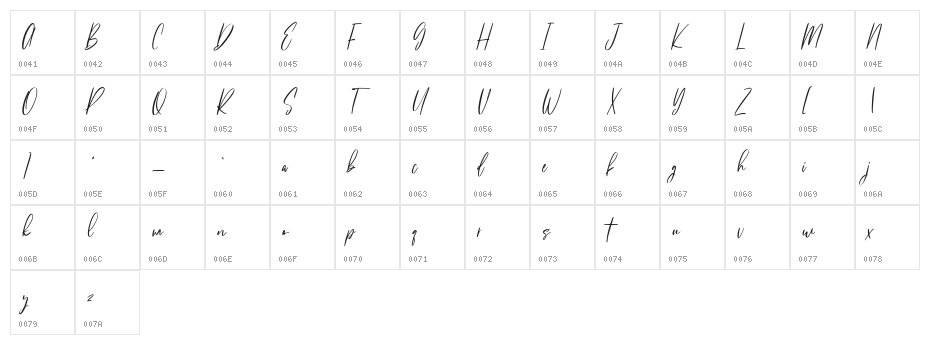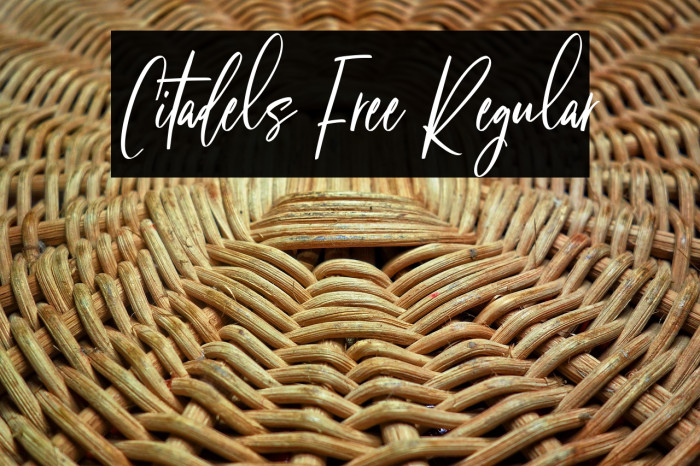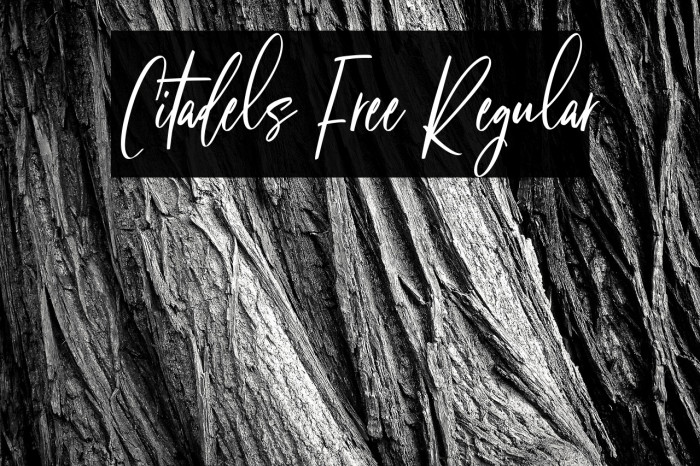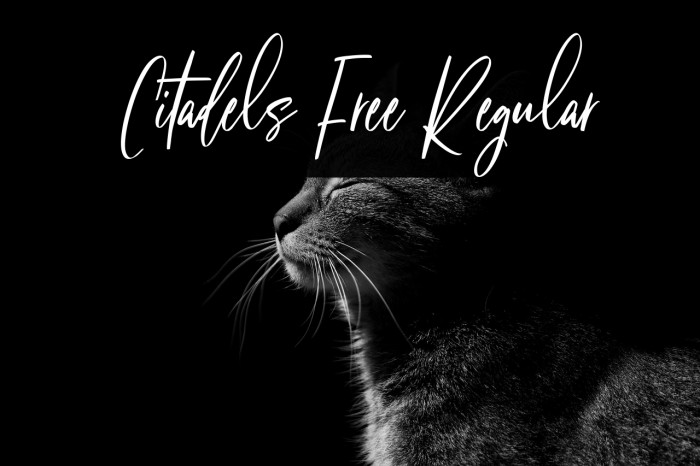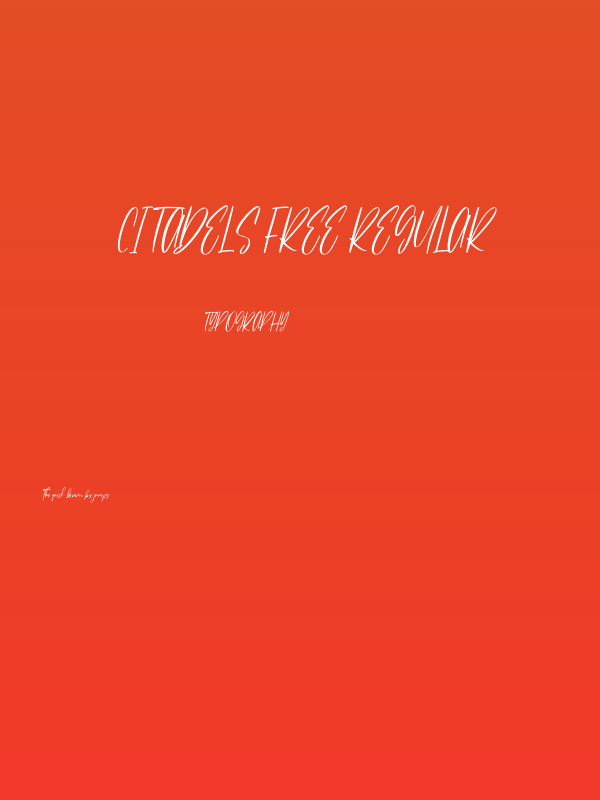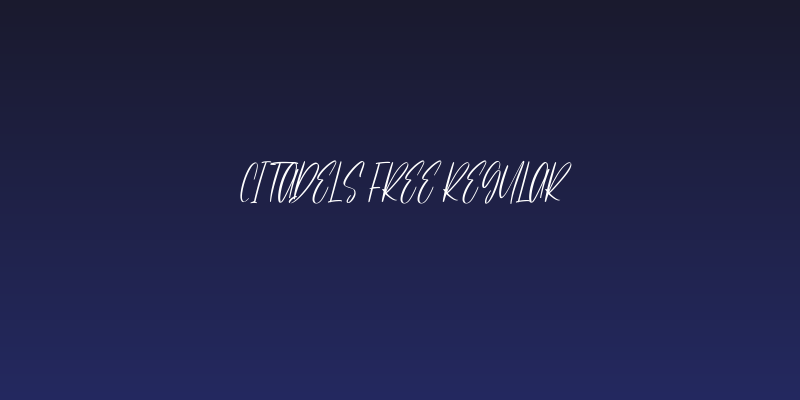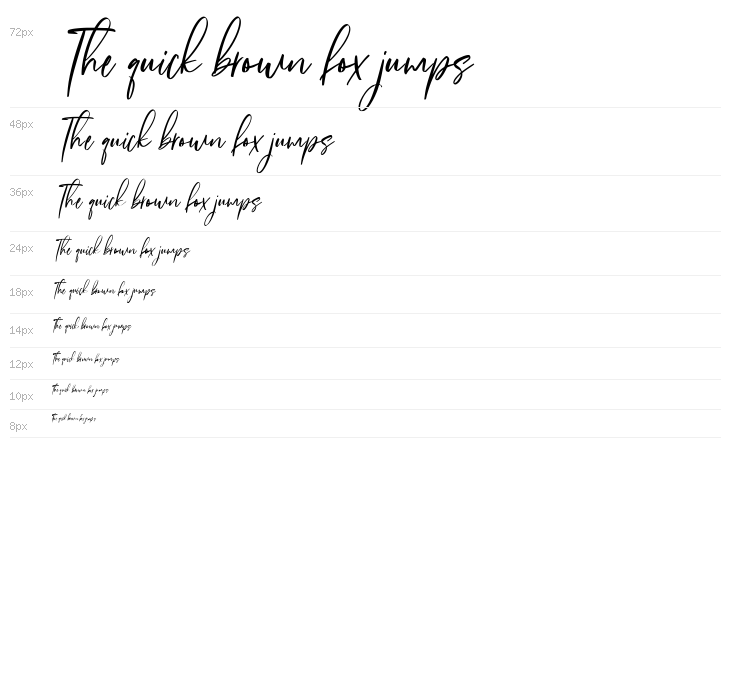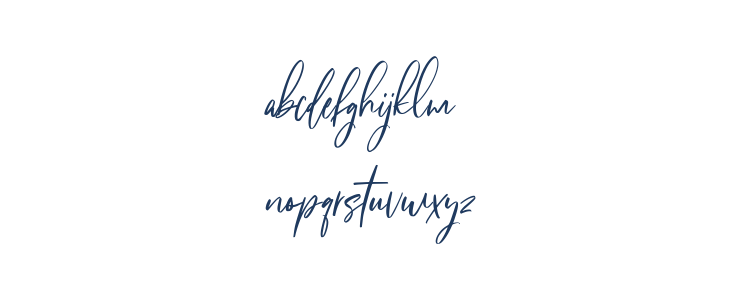
Citadels Free Regular Font
Citadels Free Regular Description
This font features a dynamic and flowing script style, characterized by its elegant and elongated letterforms. The strokes are smooth and fluid, giving it a handwritten appearance that is both sophisticated and approachable. The uppercase letters are tall and slightly condensed, while the lowercase letters maintain a consistent flow with subtle variations in height and slant. The font's overall aesthetic is modern yet timeless, making it suitable for a variety of design applications. The characters are well-spaced, ensuring readability while maintaining the artistic flair of the script.